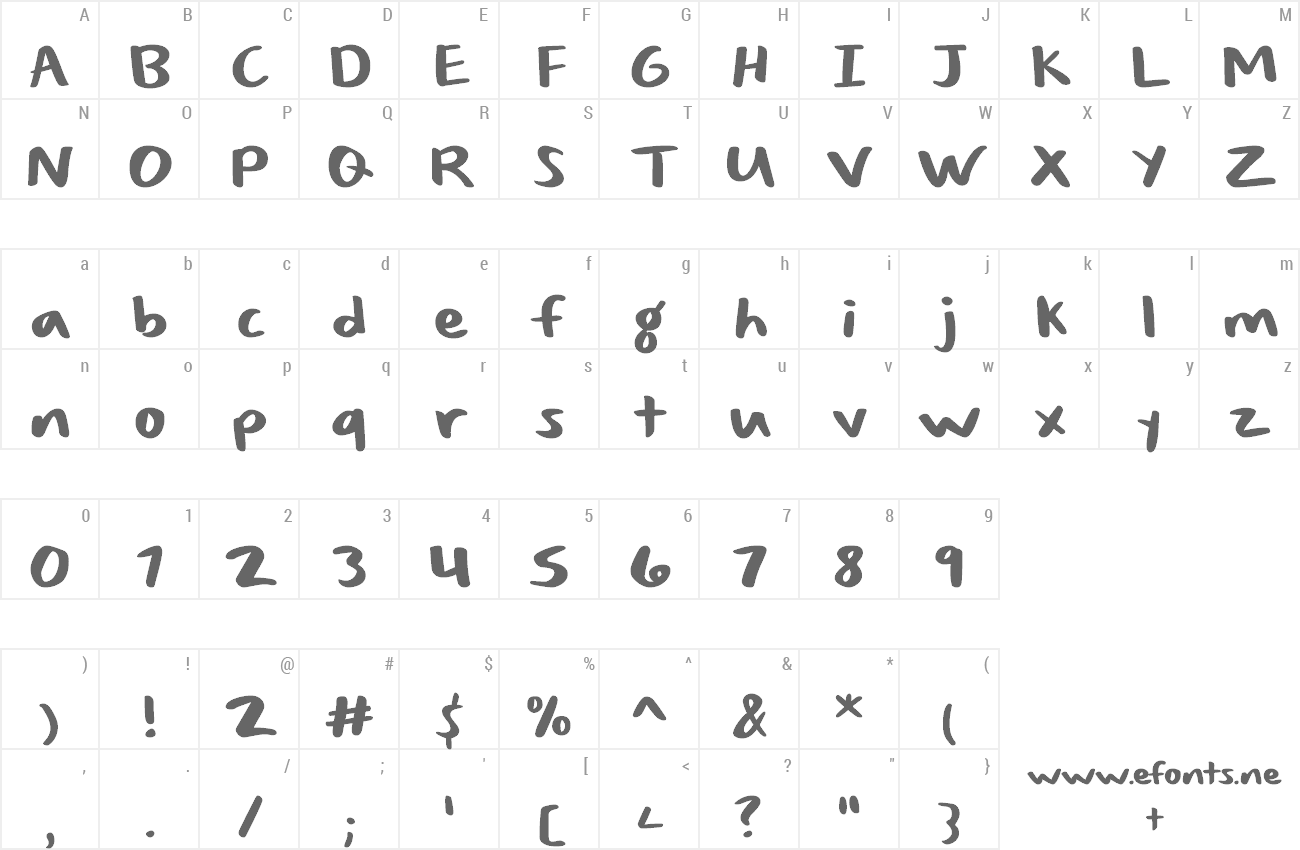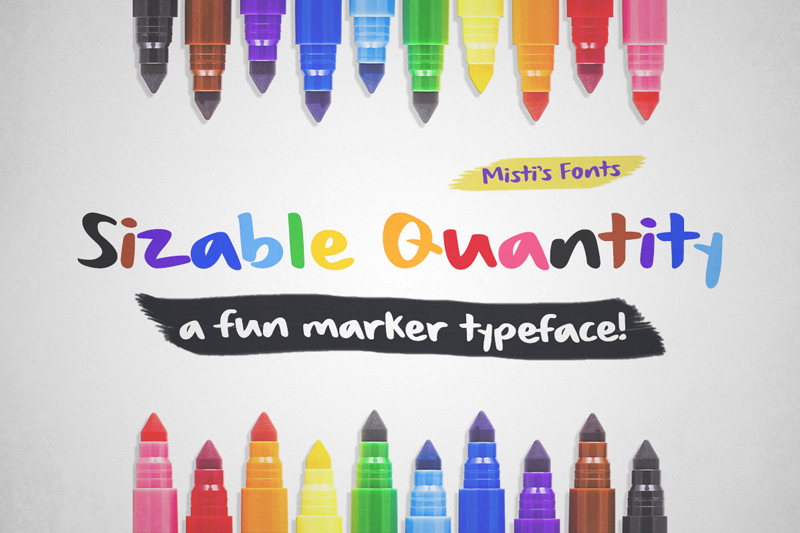
Sizable Quantity is an organic handcrafted typeface. It is perfect for adding an authentic marker look and feel to your projects. It looks great on a variety of designs including logos, advertisements, social media graphics, quotes, websites and so much more! Terms Of use and Commercial Licensing: https://mistifonts.com/sizable-quantity/ |